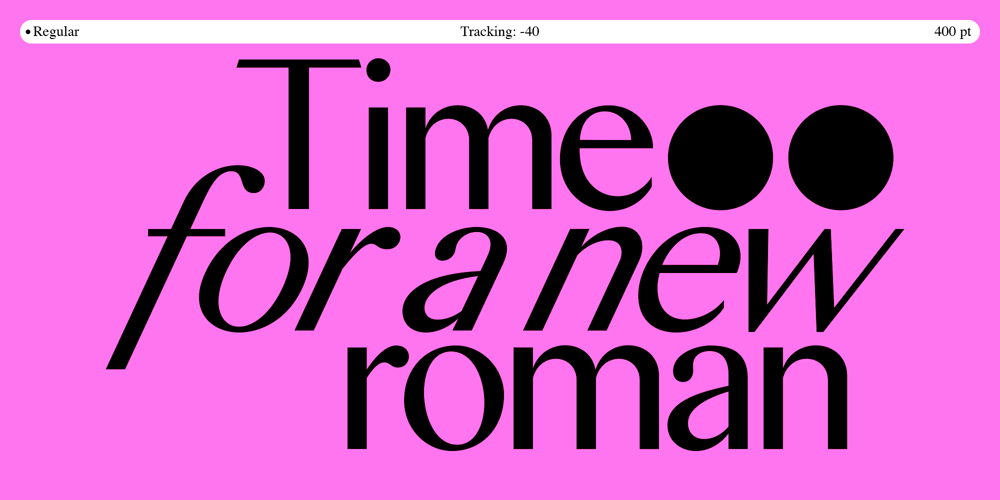
Ballmer
Ballmer font
Ballmer Font Family was designed by Felipe Calderón and published by Estudio Calderon. Ballmer contains 2 styles and family package options. A refined take on a classic, merging timeless elegance with a sleek, modern edge. Its vintage-inspired aesthetic offers versatility for editorial, branding, and digital design, all in a clean, serif-free form.